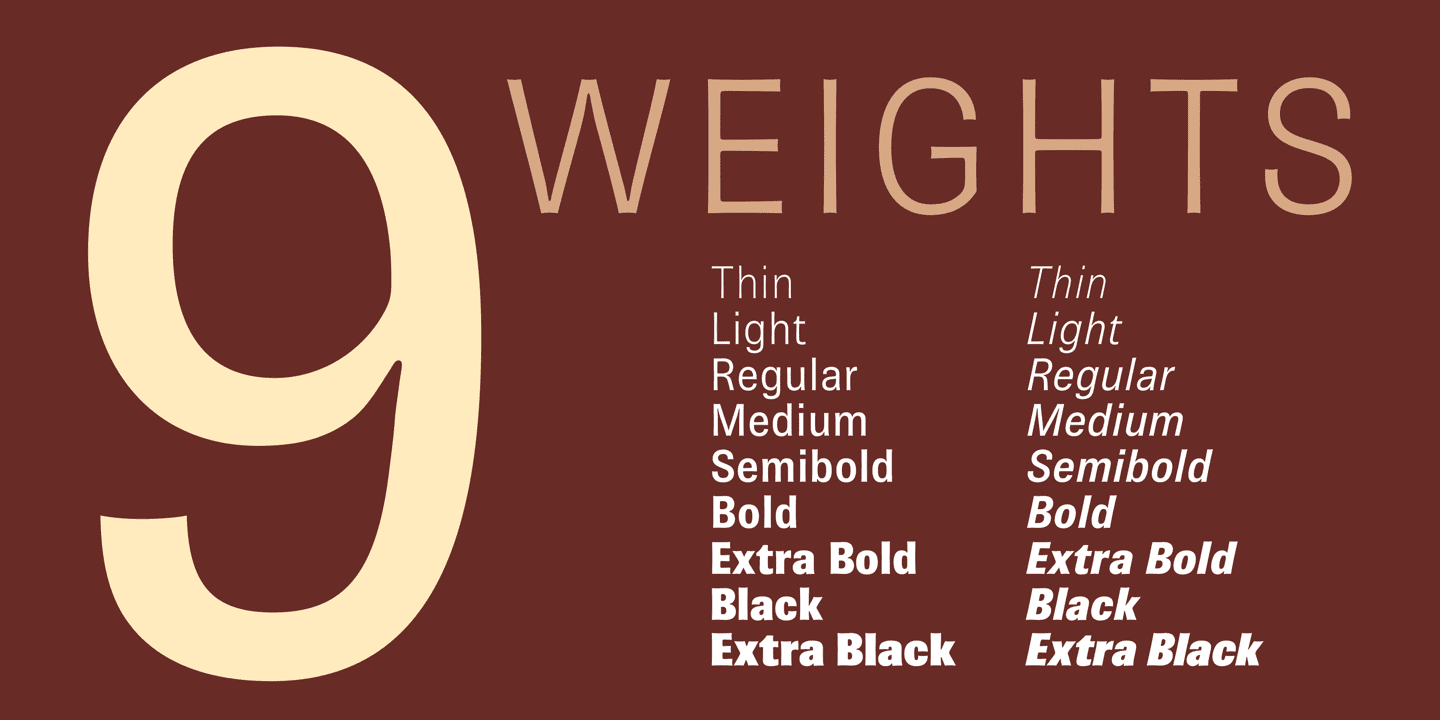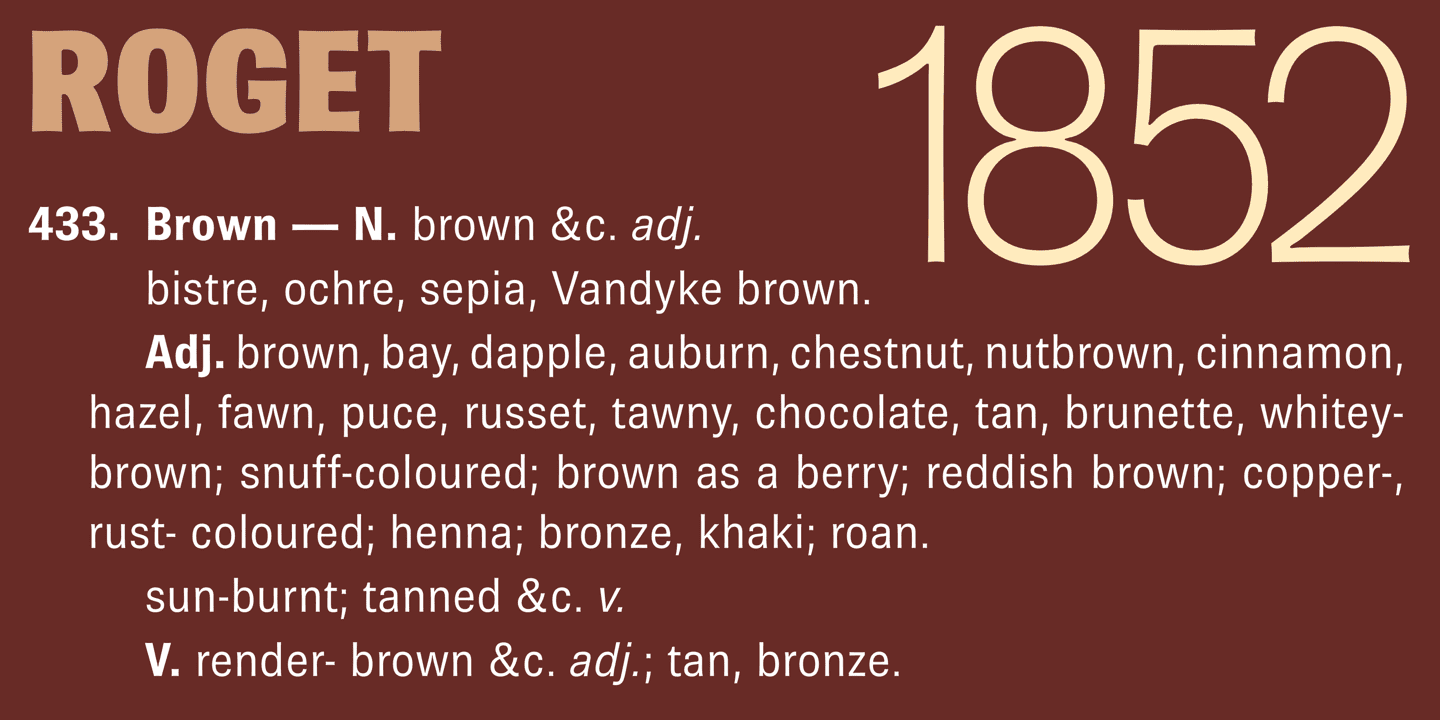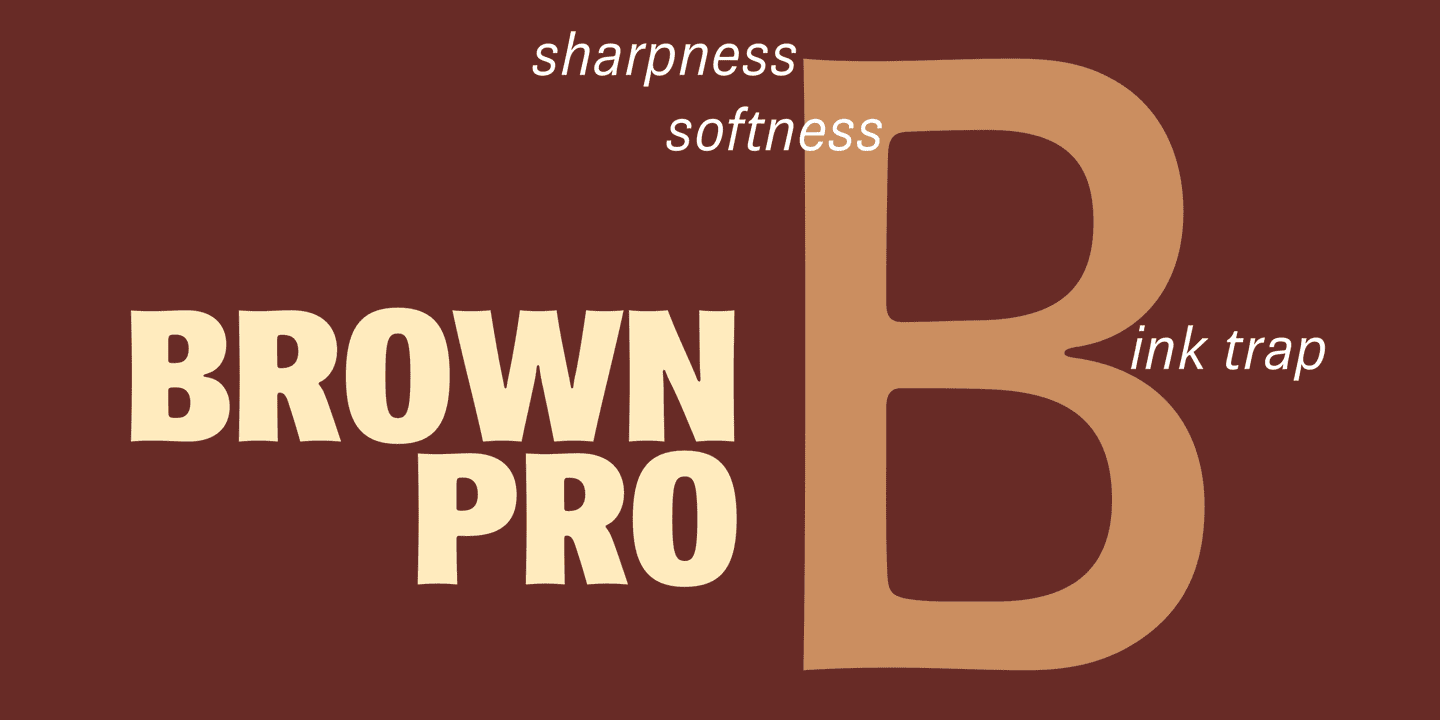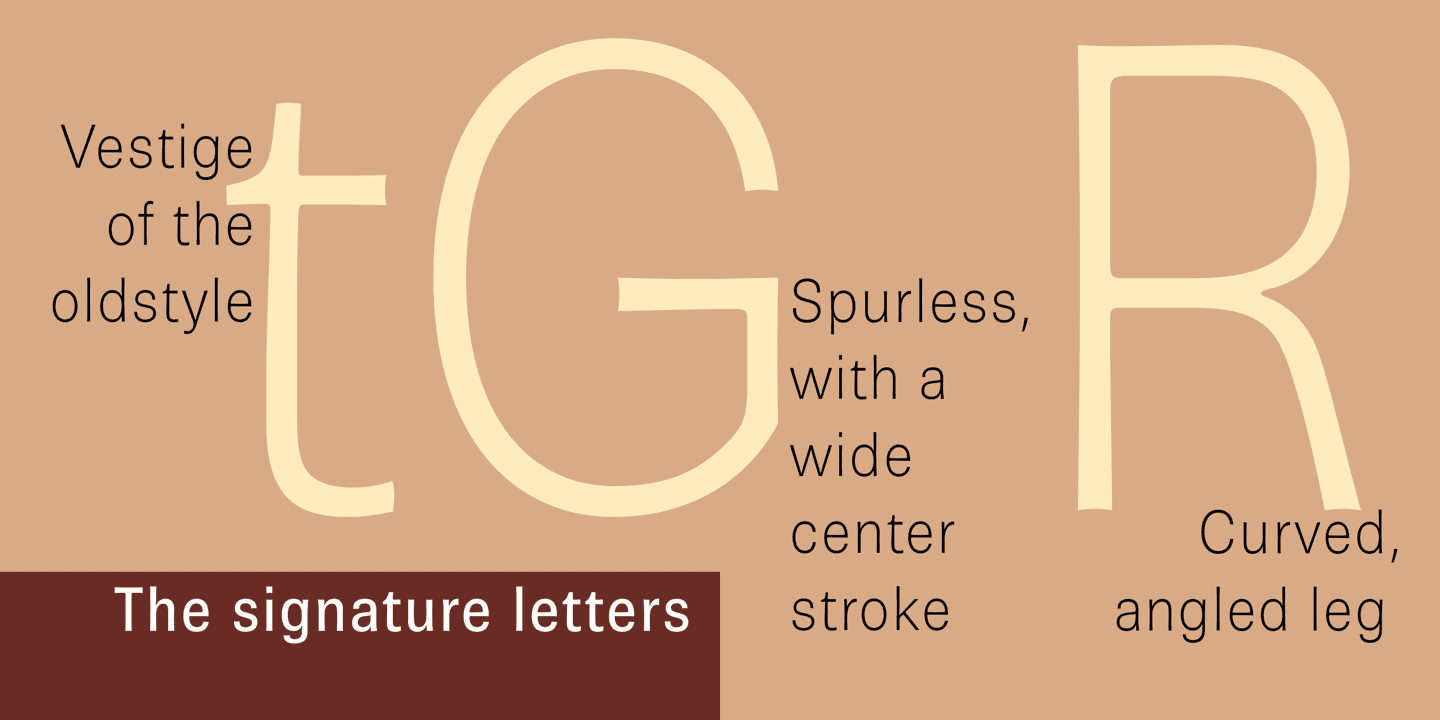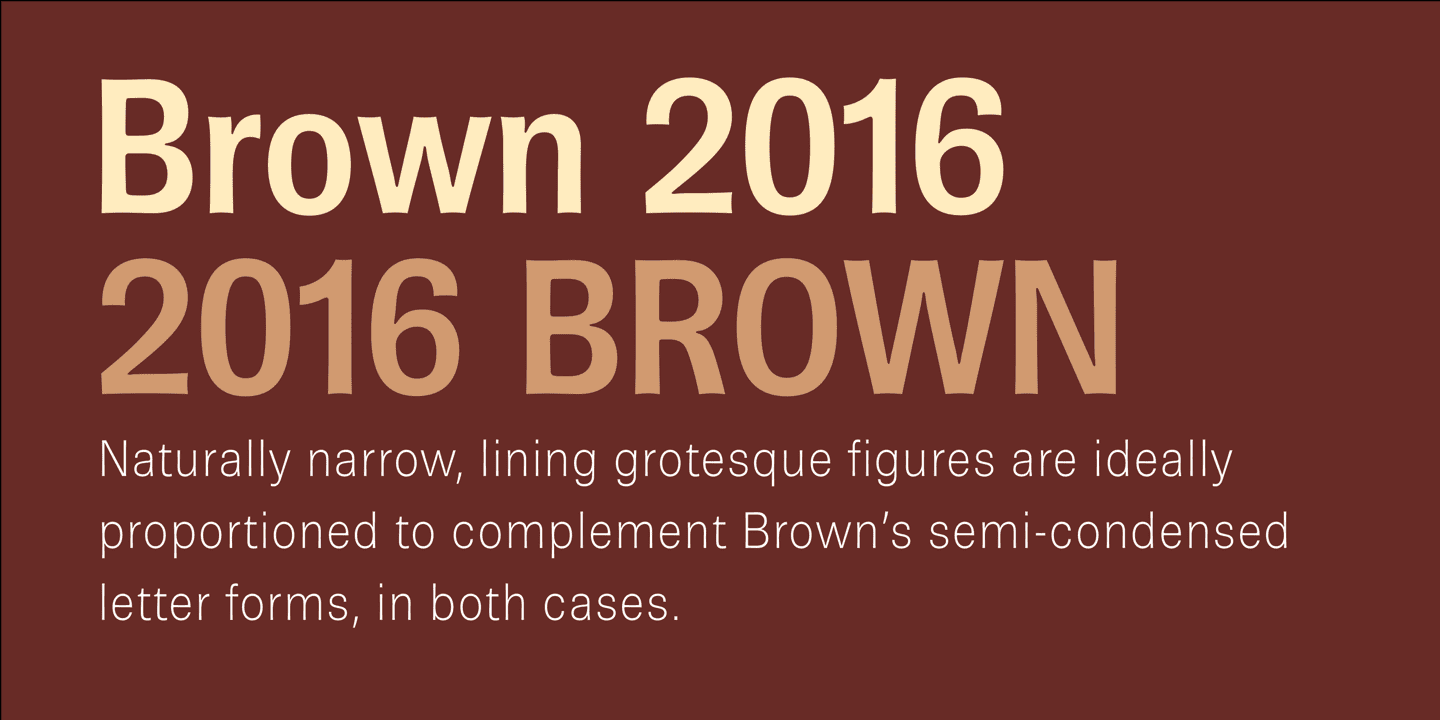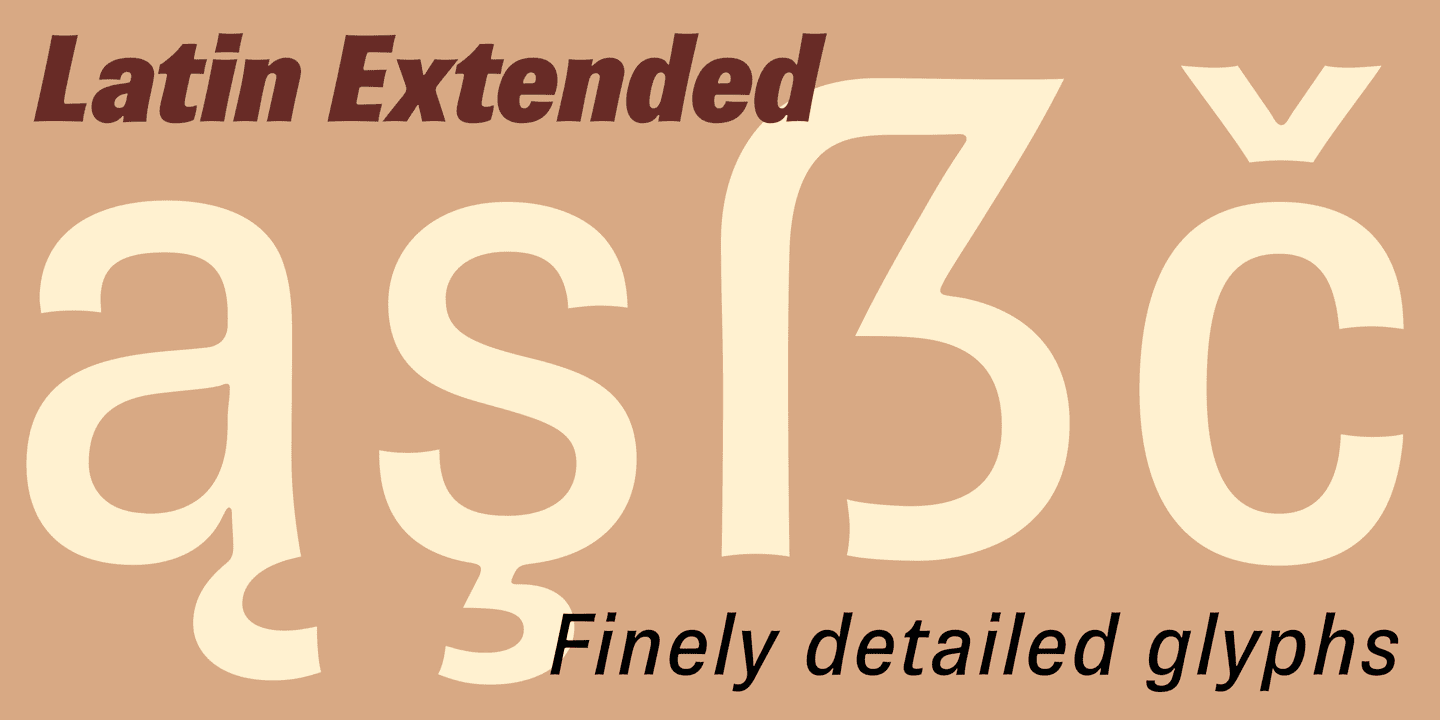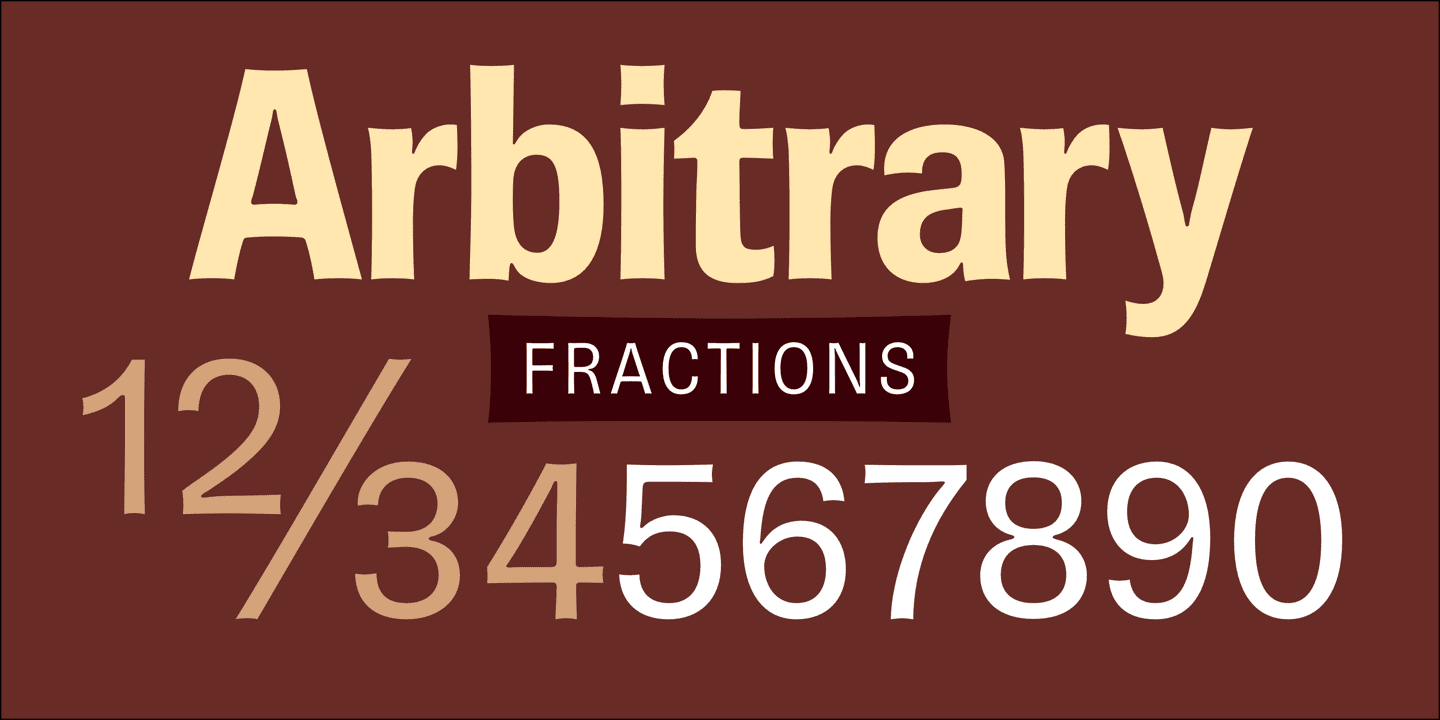
Brown Pro Family (19 fonts)
At display size, the detailing provides the otherwise austere forms of the neo-grotesque with a subtle wealth of visual interest.